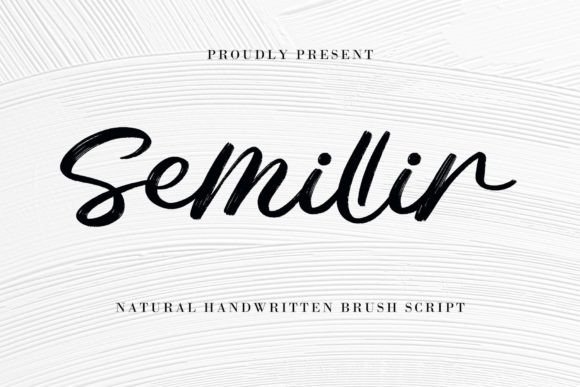
Dive into the mesmerizing world of Semillir Font, a script font family that exudes elegance and charm. Crafted with precision by AEN Creative Studio, this font is a true masterpiece, designed to capture hearts and leave a lasting impression.
With its natural romantic and sweet handwritten brush strokes, Semillir Font adds a touch of playfulness and whimsy to any project. Its versatility knows no bounds, making it the perfect choice for designing logos, quotes, posters, playful lettering, clothing, and any other design that calls for a unique and captivating touch.
Whether you're a seasoned graphic designer or just starting out, Semillir Font is the perfect tool to elevate your creative projects. Its simple yet sophisticated design allows you to create stunning visuals that are sure to leave a lasting impression.
So, embark on a creative journey with Semillir Font. Let your imagination soar as you create designs that are as unique and captivating as you are. Experience the magic of Semillir Font today and transform your creative vision into a reality.